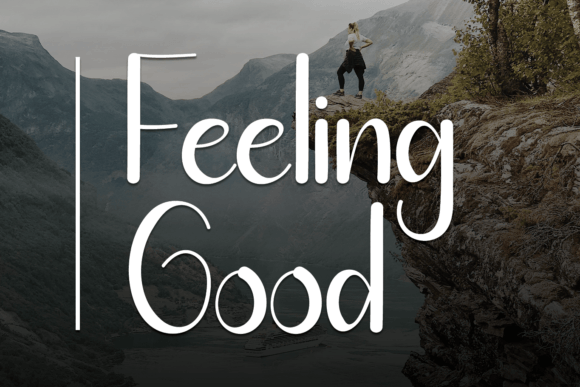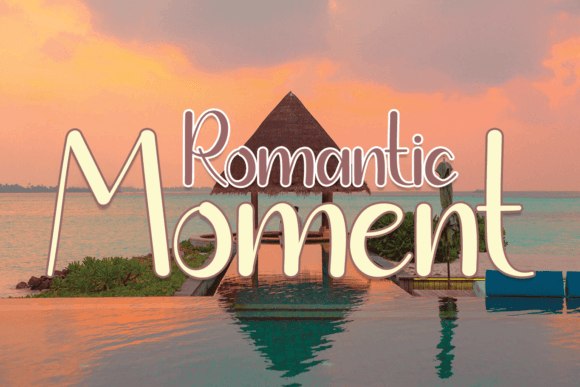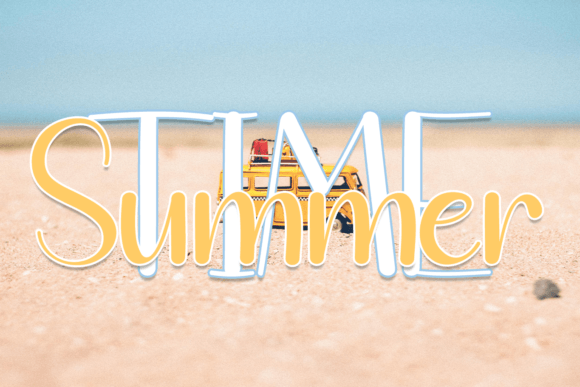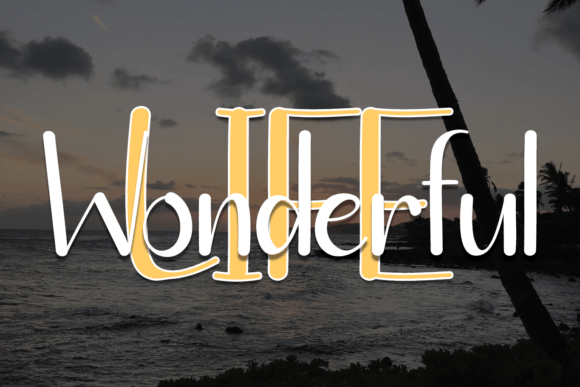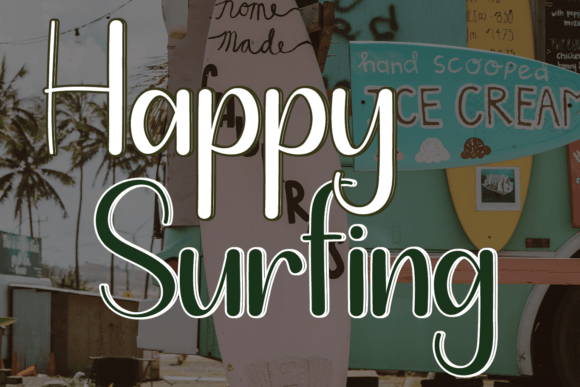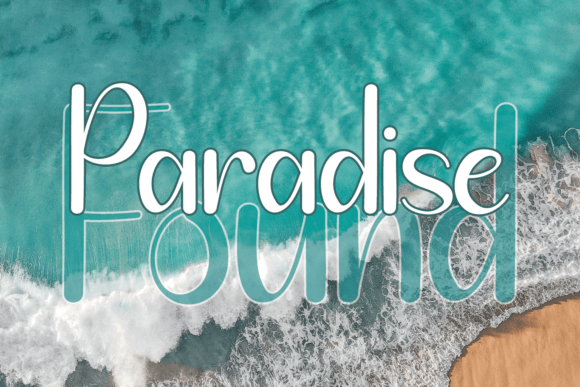
Feeling Good Font
About Feeling Good Font
“Feeling Good” is a playful and friendly display font designed to add a lively and approachable touch to your creative projects. This font’s playful nature makes it versatile and suitable for a wide range of design applications. Whether you’re working on posters, branding, packaging, or any project that requires a cheerful and standout appearance, “Feeling Good” can be a great choice.
The playful and friendly characteristics of “Feeling Good” make it well-suited for creating designs that exude positivity and approachability. Its display style ensures that it catches attention, making your text stand out in a delightful and engaging way.
Imagine “Feeling Good” adding a playful touch to a poster for a fun event, where its friendly demeanor enhances the overall vibe. Picture it on branding materials for a lighthearted product, where it creates a memorable and approachable visual identity. Envision it on packaging, adding a cheerful and standout element to the design.
In summary, “Feeling Good” is more than just a font; it’s a design tool that injects playfulness and friendliness into your projects. Whether you’re creating for print or digital media, let “Feeling Good” be the font that makes your designs stand out with a delightful and cheerful appearance.